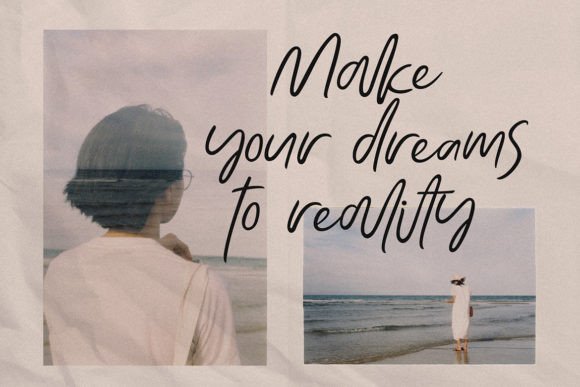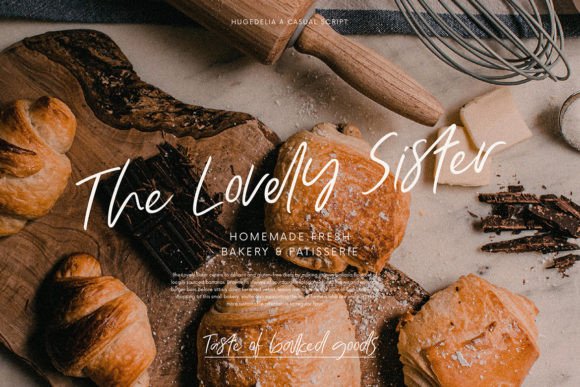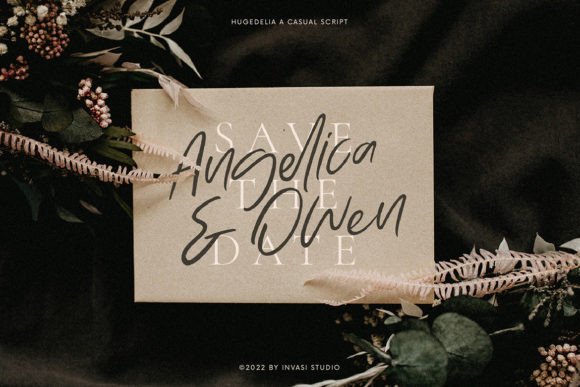
Introduction to Hugedelia Font
Hugedelia is a cool and incredibly modern handwritten brush font.
Whatever the topic, this font will be a wonderful asset to your font library, as it has the potential to enhance any creation This font is PUA encoded which means you can access all glyphs and swashes with ease.
Key Features of Hugedelia Font